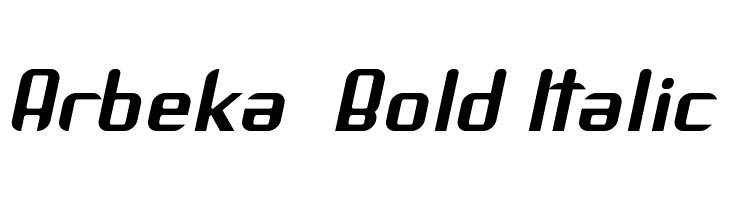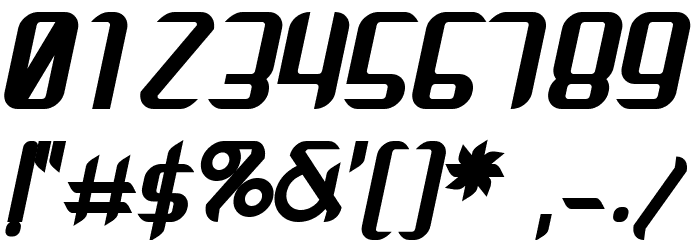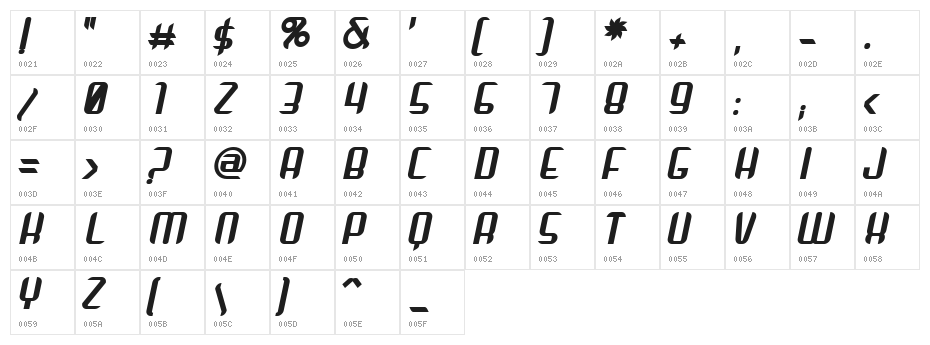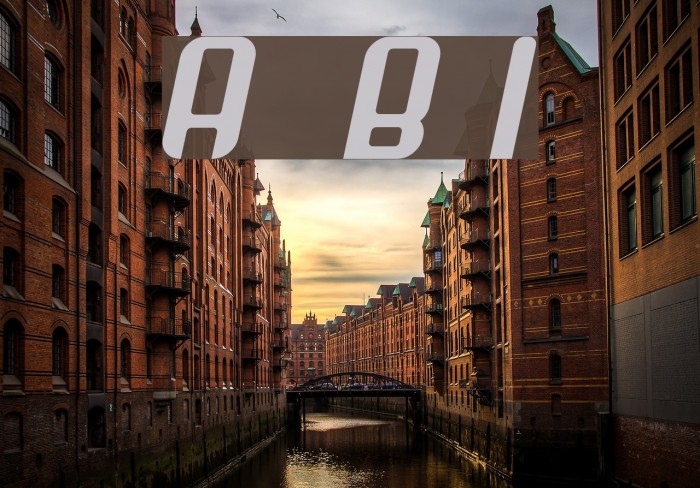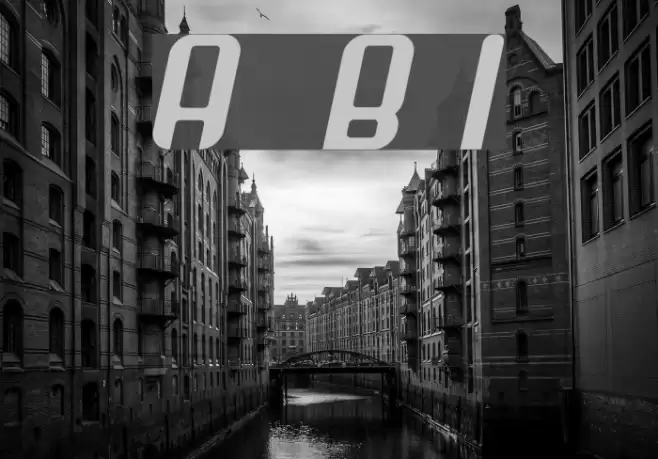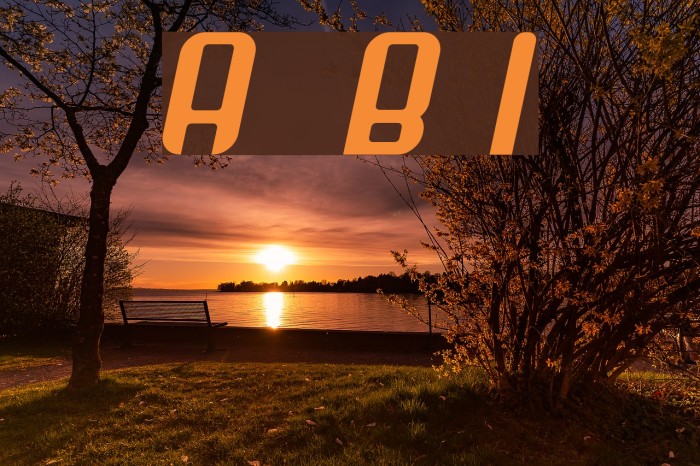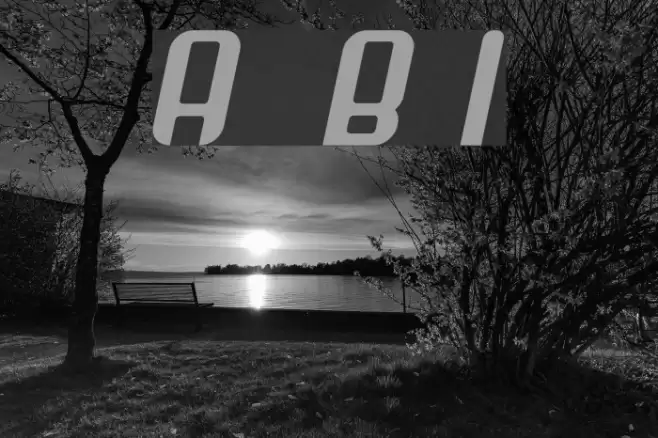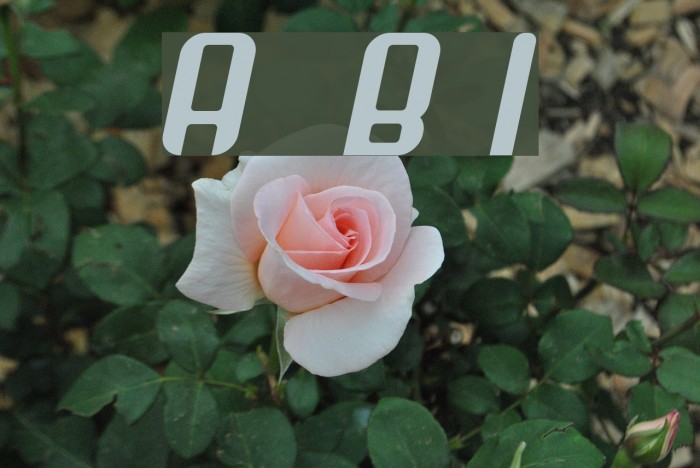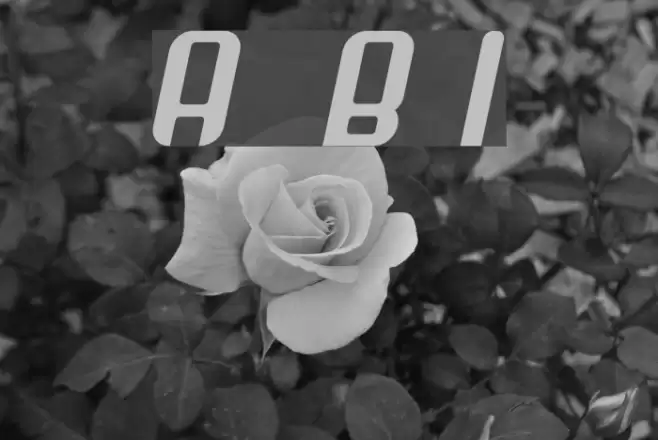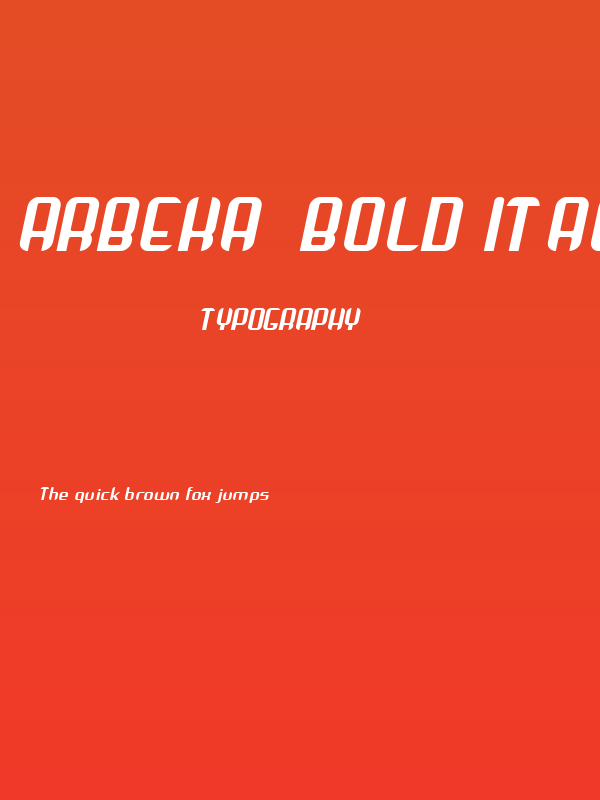
Arbeka Bold Italic Font
Arbeka Bold Italic Description
This font features a bold and italicized style with a modern and dynamic appearance. The characters are slightly slanted, giving a sense of motion and energy. The strokes are thick and consistent, providing a strong visual impact. The uppercase and lowercase letters are well-proportioned, maintaining readability while adding a unique flair. The numbers and special characters follow the same design principles, ensuring a cohesive look across all elements. This font is ideal for projects that require a bold statement and a contemporary feel.